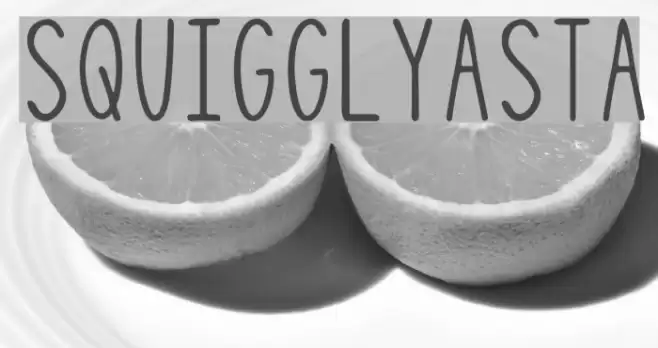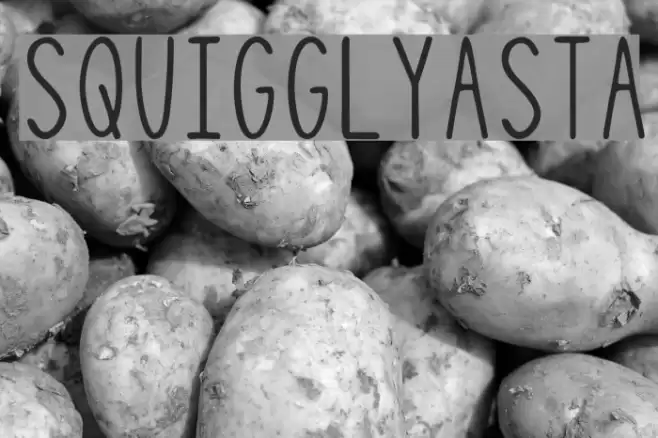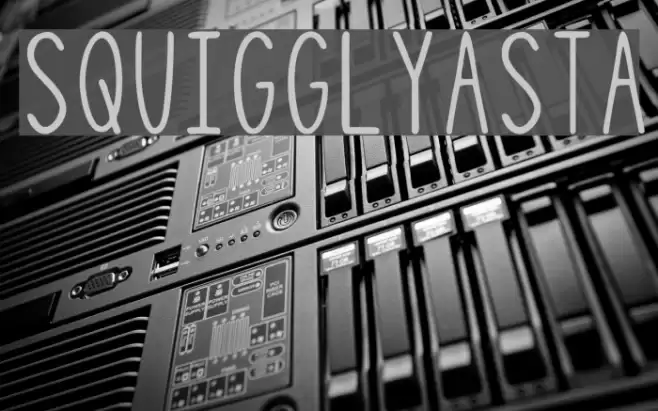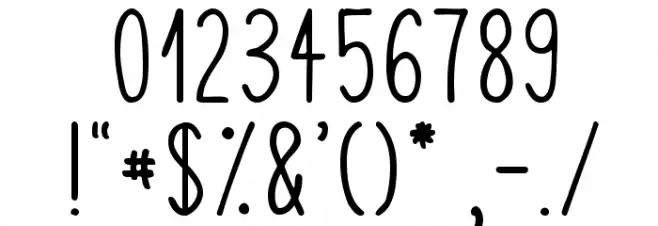
SquigglyAsta Font
SquigglyAsta Description
This playful and whimsical font features a hand-drawn style with irregular, wavy lines that give it a casual and friendly appearance. The characters are tall and narrow, with a consistent stroke width that maintains readability while adding a touch of personality. The uppercase and lowercase letters are distinct yet harmonious, making it versatile for various design needs. Numbers and special characters are included, each maintaining the same quirky style. This font is perfect for projects that require a fun and informal touch, such as children's books, greeting cards, or playful branding.
A playful, hand-drawn font with wavy lines and a casual style from Handwritten fonts.
- Proposed Projects: Ideal for children's books, greeting cards, playful branding, and informal invitations.
- Width: Condensed
- Use Case: Headlines, Logos, Informal Text